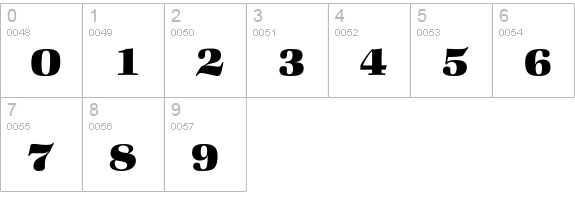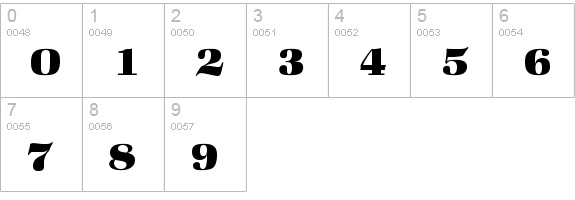
ZapfBookEF-Heavy is a heavy, high-impact variant in the ZapfBookEF typeface family \xE2\x80\x94 well suited to high-impact headlines, posters, and display advertising.
ZapfBookEF-Heavy is a bold and impactful font that exudes strength and modernity. With its sturdy lines and sharp edges, this typeface commands attention and adds a touch of sophistication to any design project. The heavy weight of the letters brings a sense of authority and presence, making it perfect for headlines, titles, and branding materials. What sets ZapfBookEF-Heavy apart is that it is not only a powerful font, but it is also free for anyone to use. That's right, you can download this exceptional typeface at no cost from FontsMarket.com. Whether you're a designer looking to elevate your work or an enthusiast searching for a font that makes a statement, ZapfBookEF-Heavy is the perfect choice. Don't miss out on this opportunity to enhance your projects with a high-quality, free font that will leave a lasting impression.